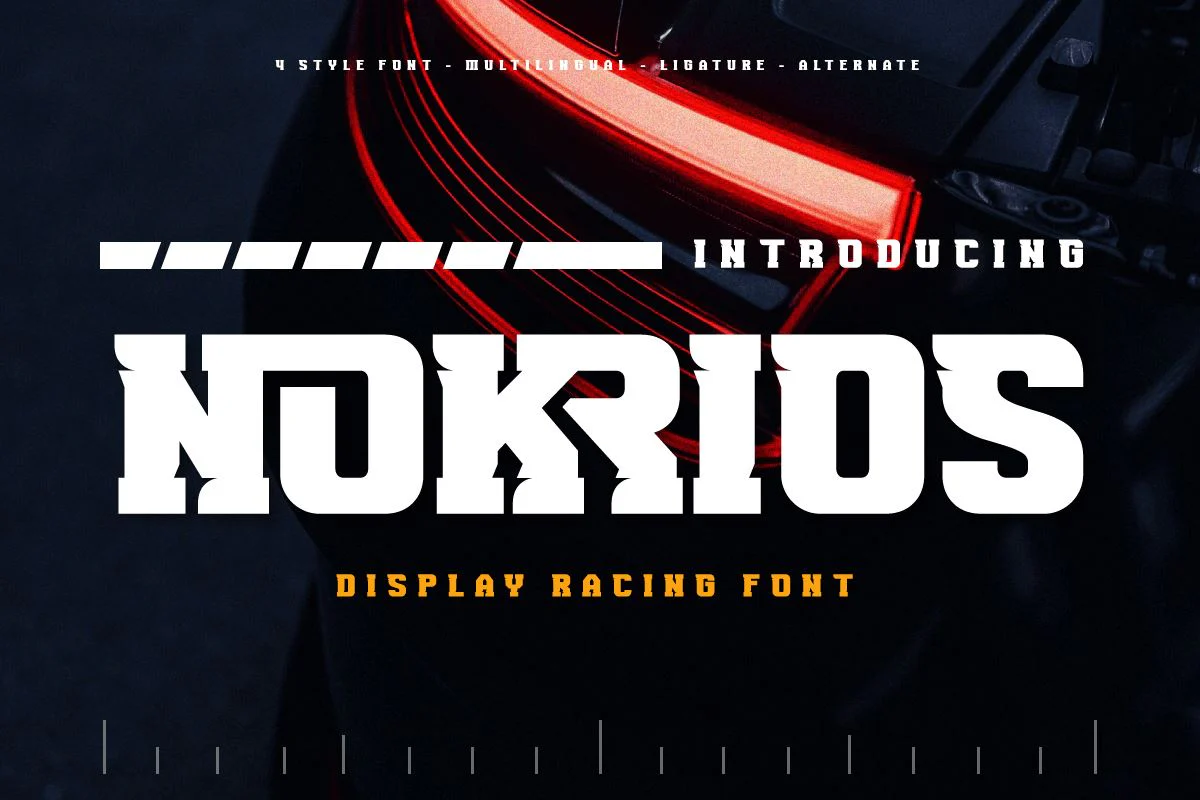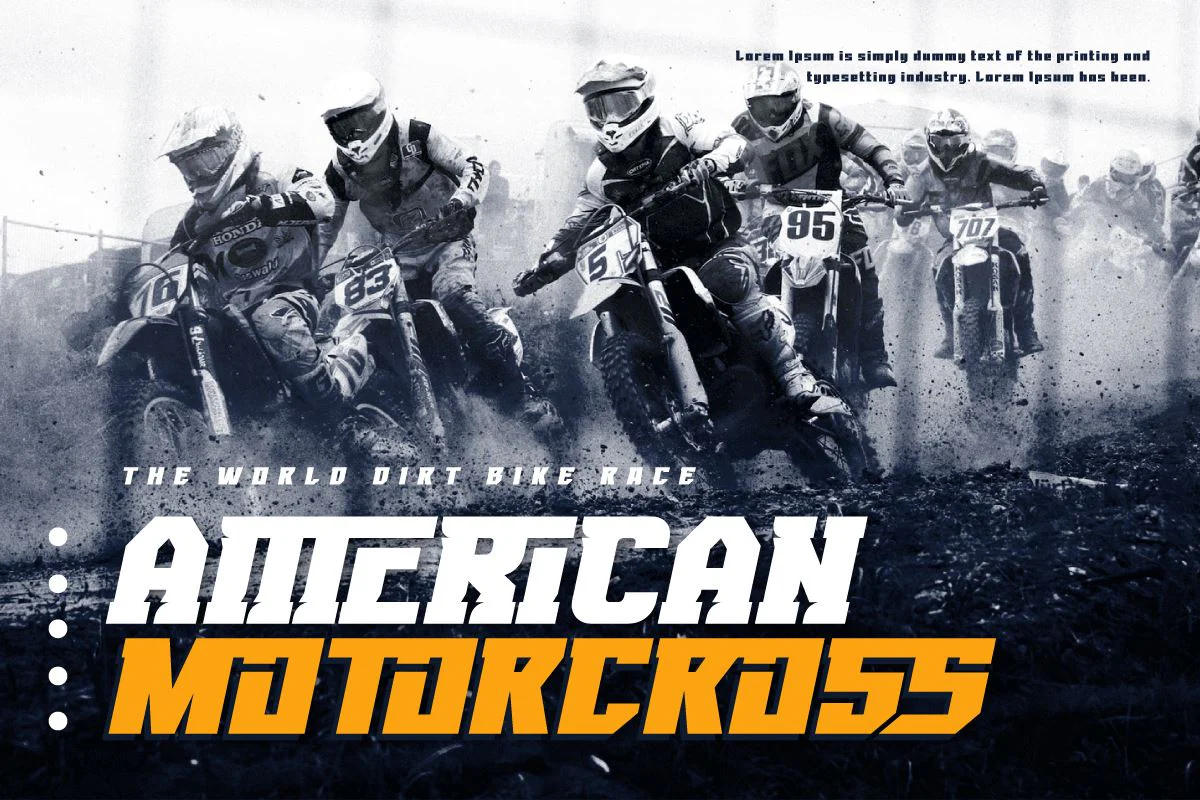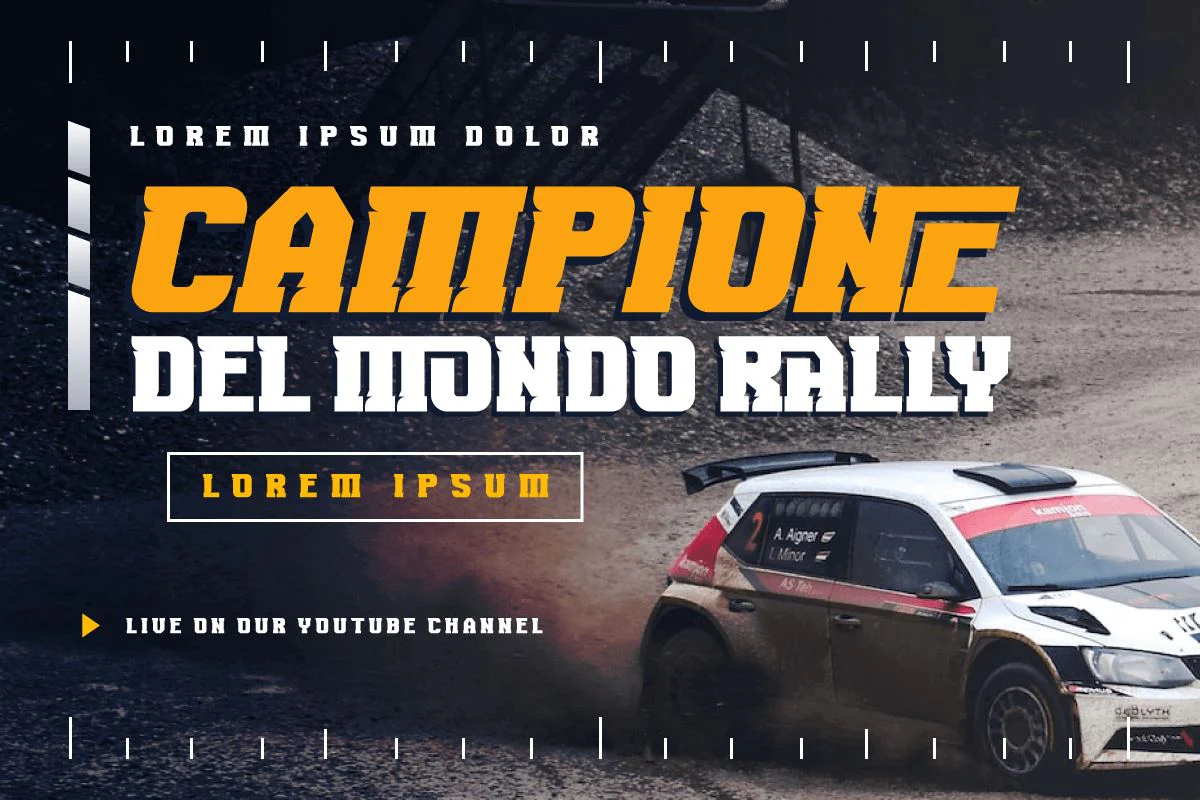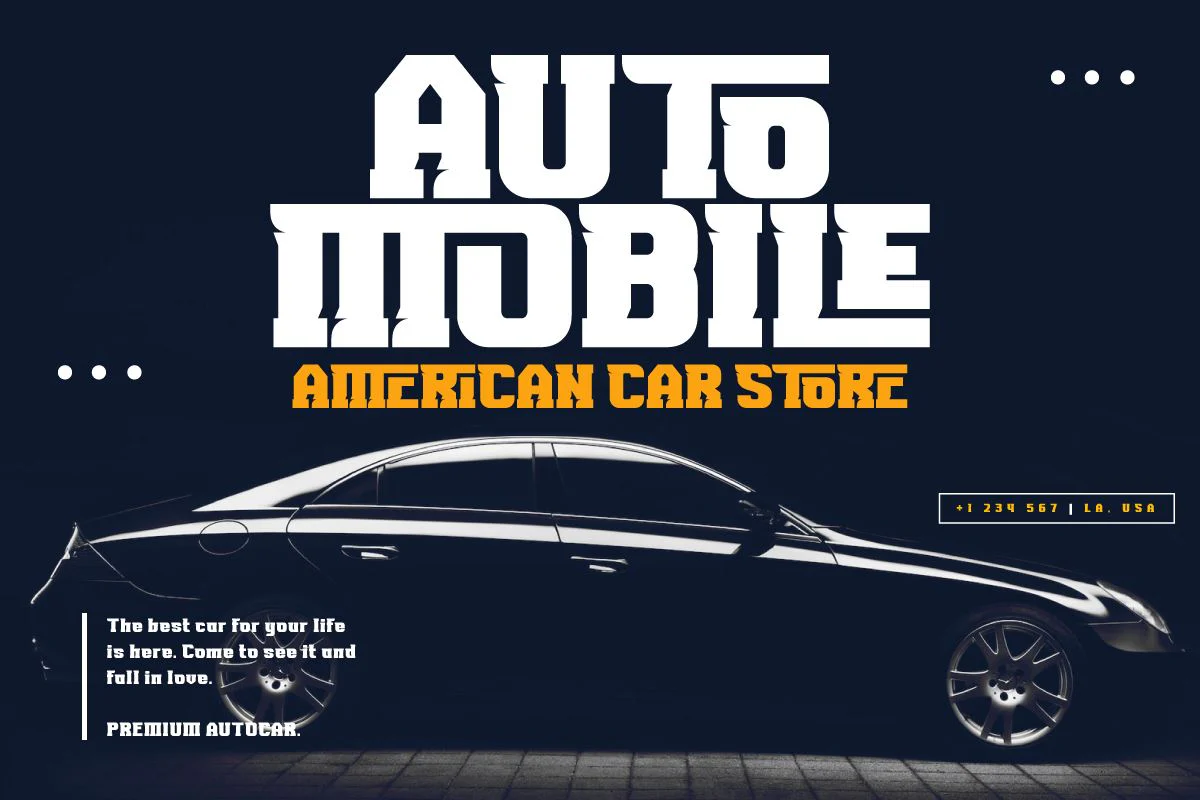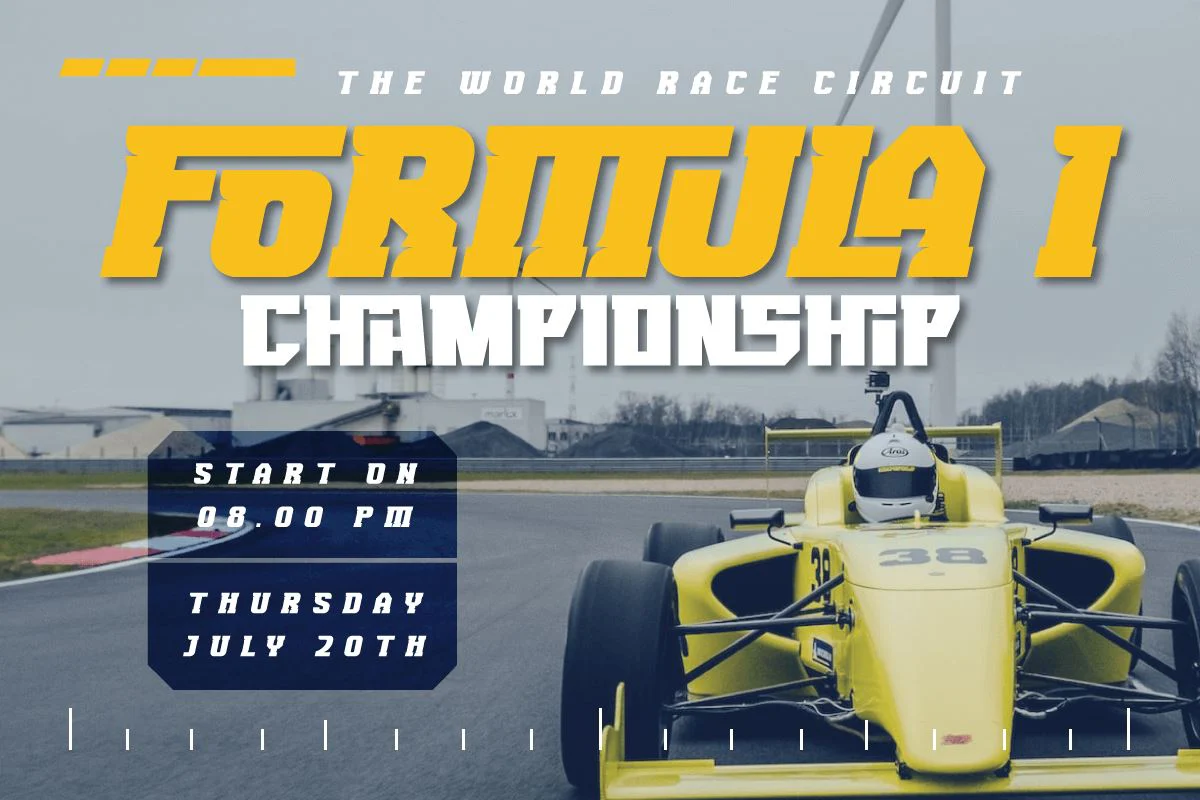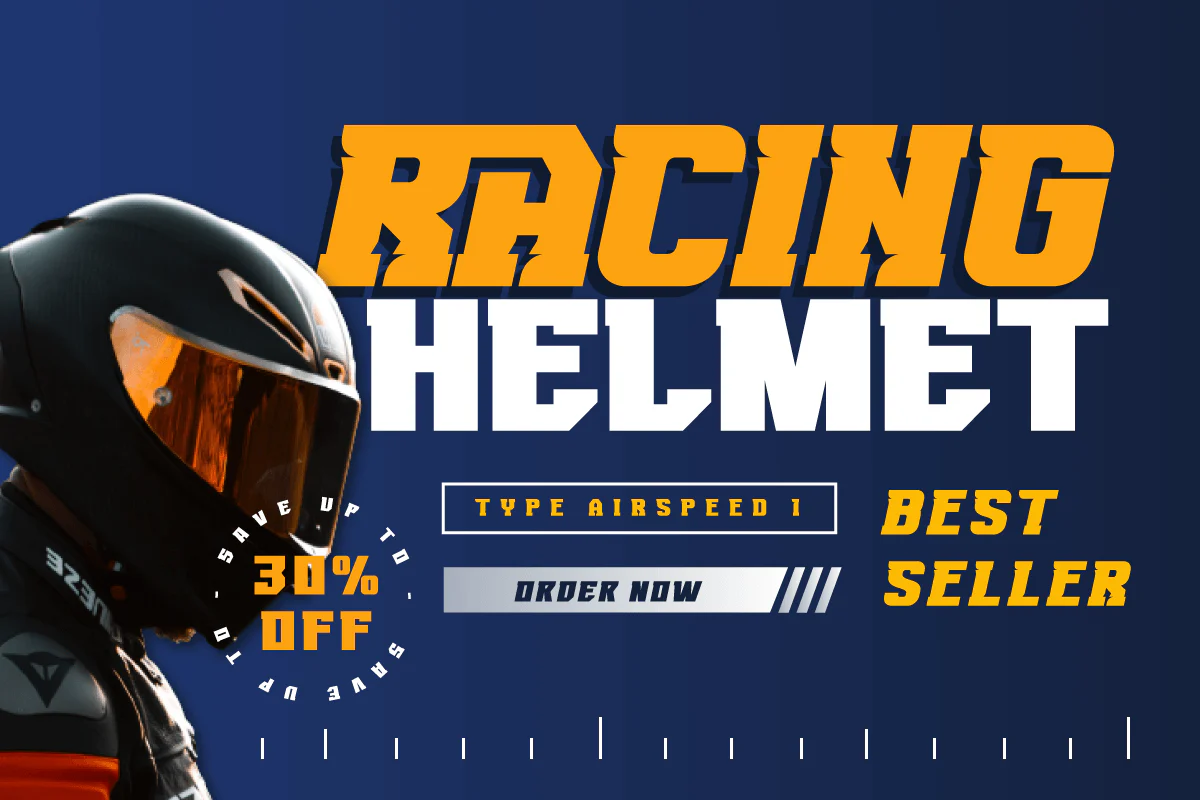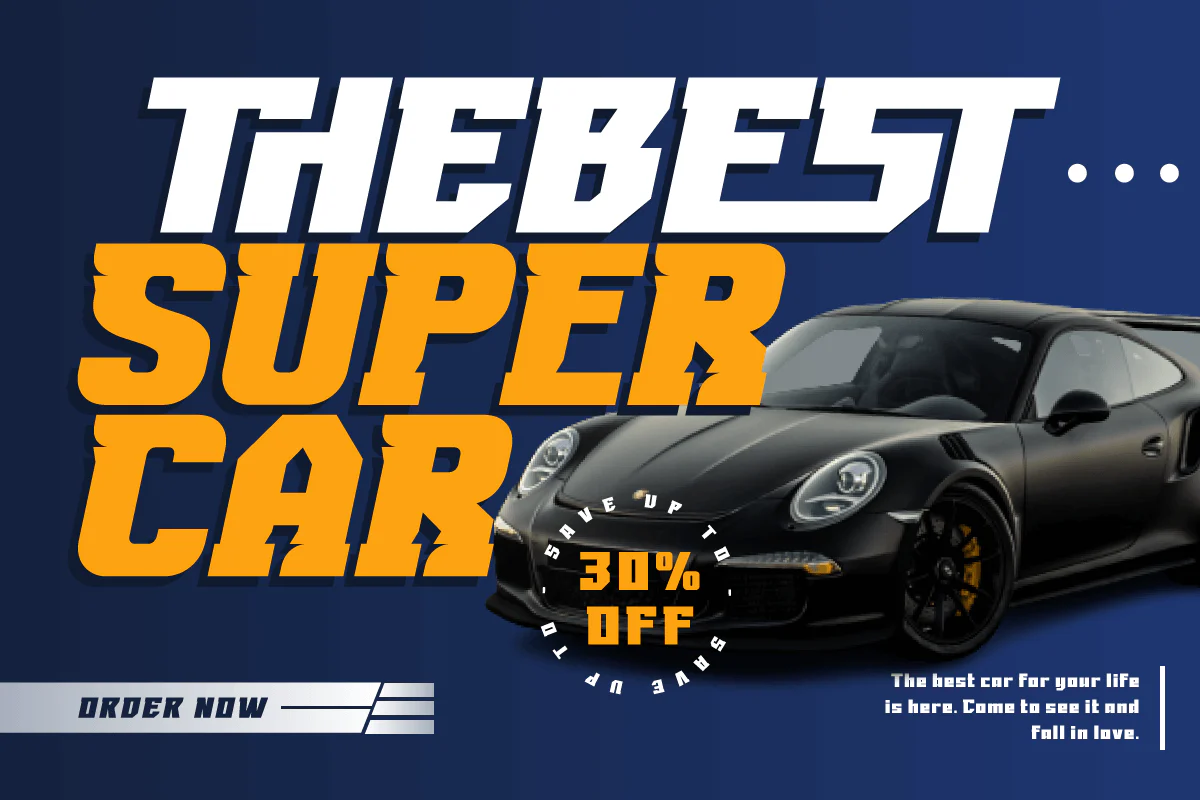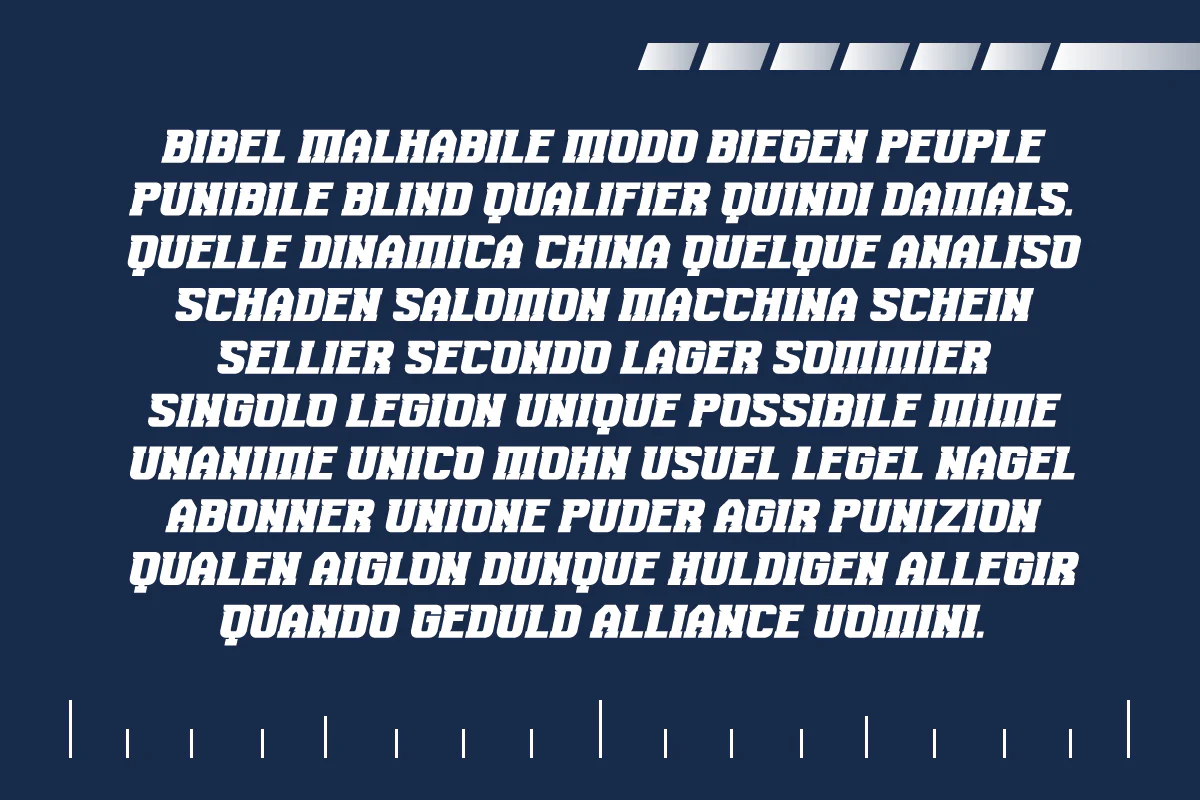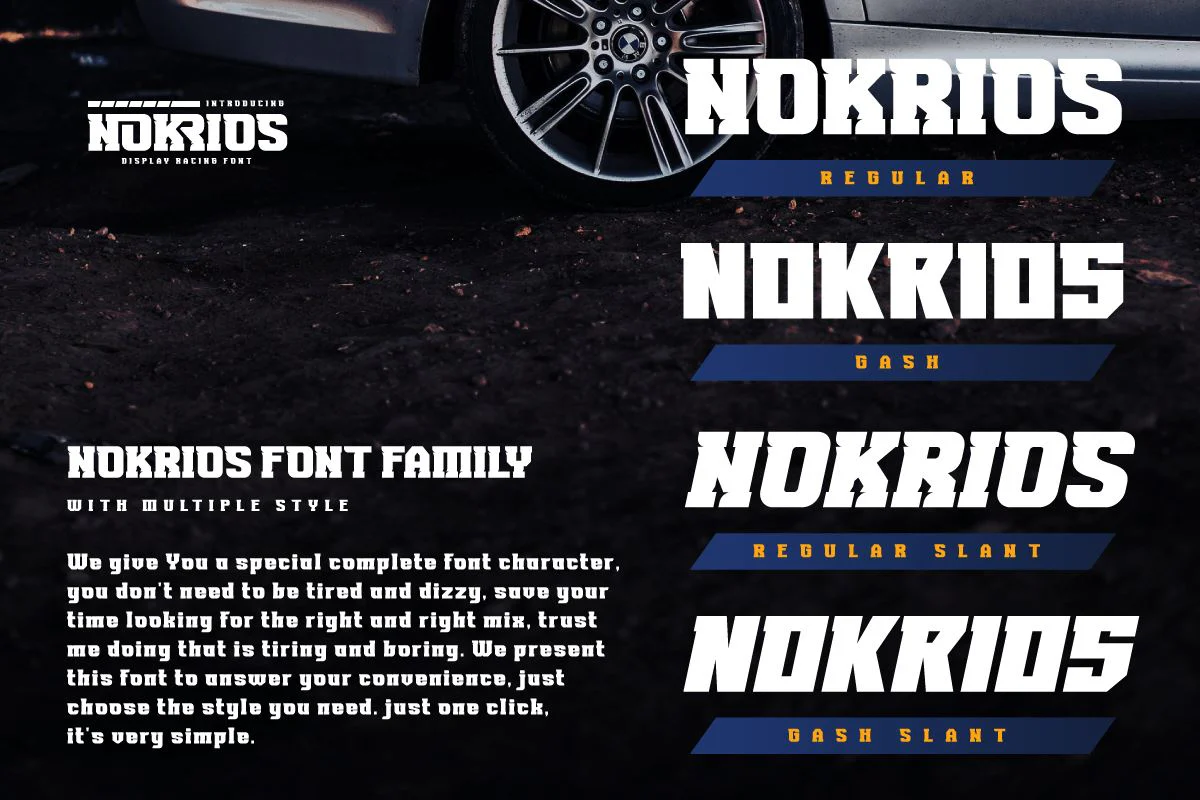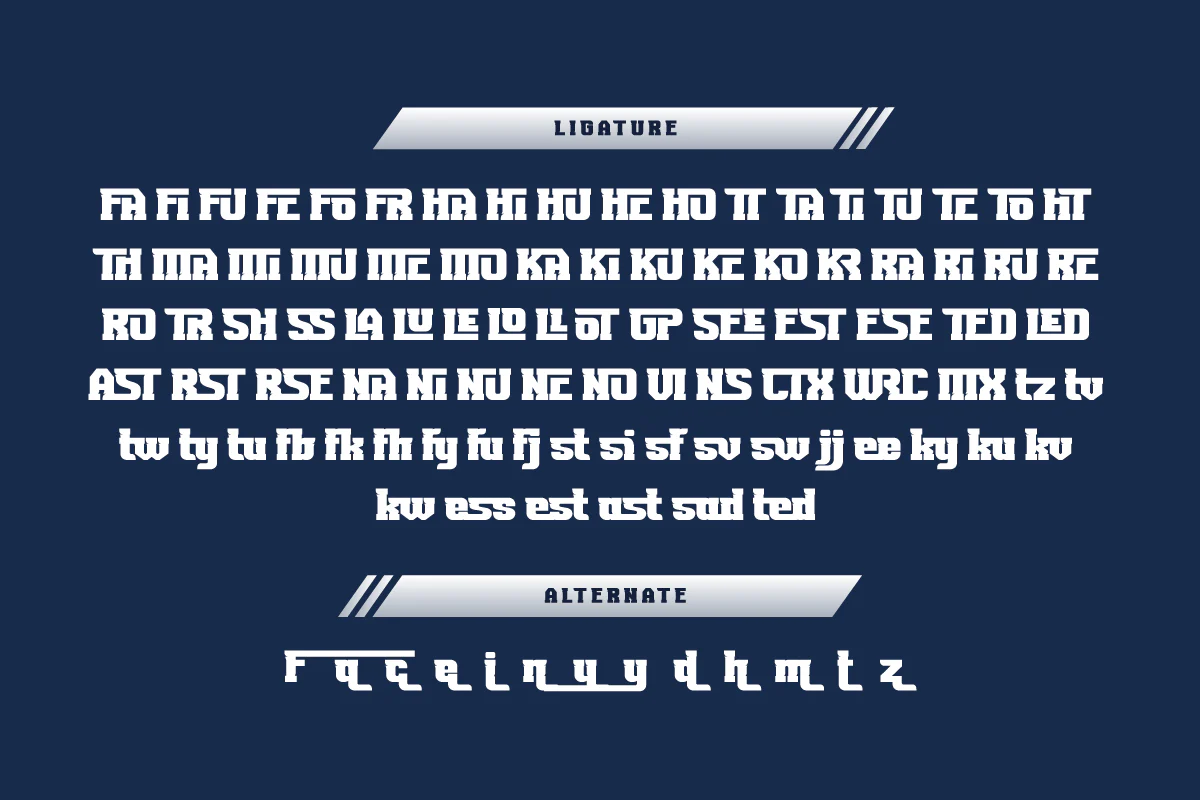
NOKRIOS | Speed Racing Font
Nokrios is a font specifically inspired by the sport of racing. adopts the speed and power it tries to fully reflect to make a bold statement that stands out. We designed it to be a heavy-duty, functional add-on option for big, bold titles or small add-on types. This font features two different font options and two italic options.
This font is perfect for adding punch to your projects without losing readability or impact at small sizes.
Nokrios is a font specifically inspired by the sport of racing. adopts the speed and power it tries to fully reflect to make a bold statement that stands out. We designed it to be a heavy-duty, functional add-on option for big, bold titles or small add-on types. This font features two different font options and two italic options.
This font is perfect for adding punch to your projects without losing readability or impact at small sizes.